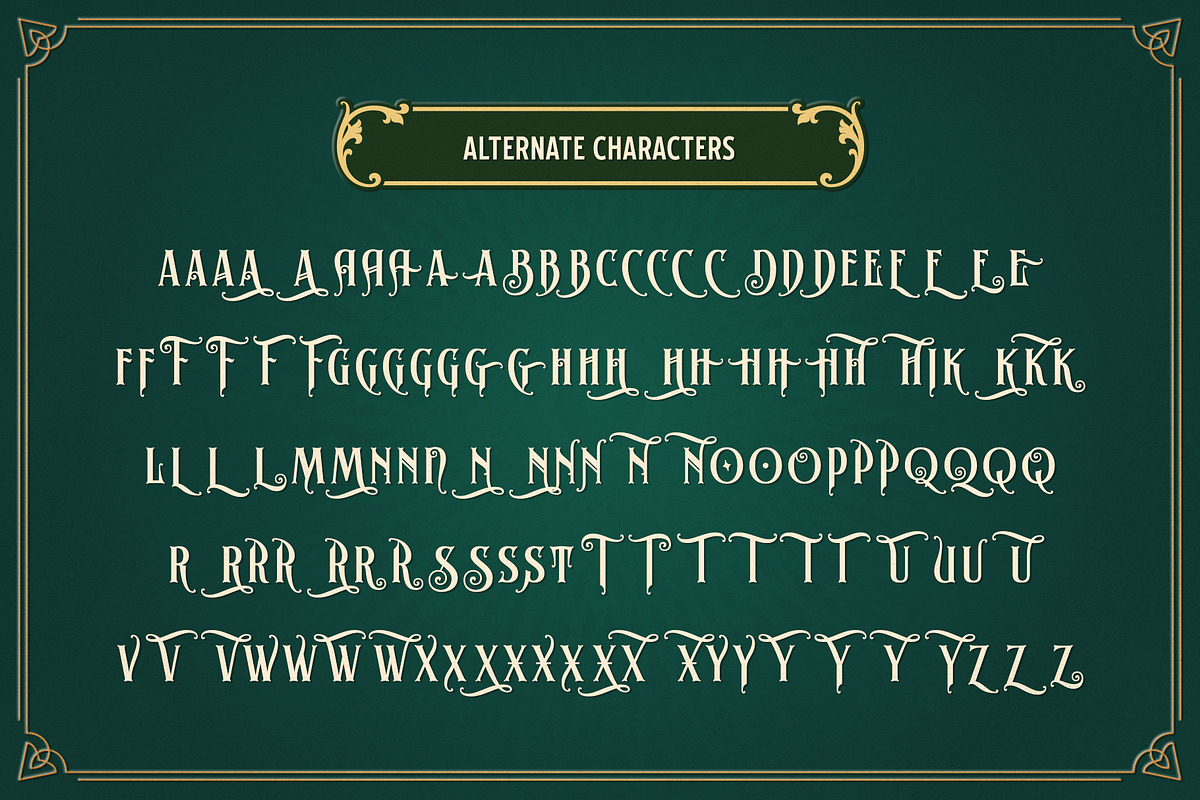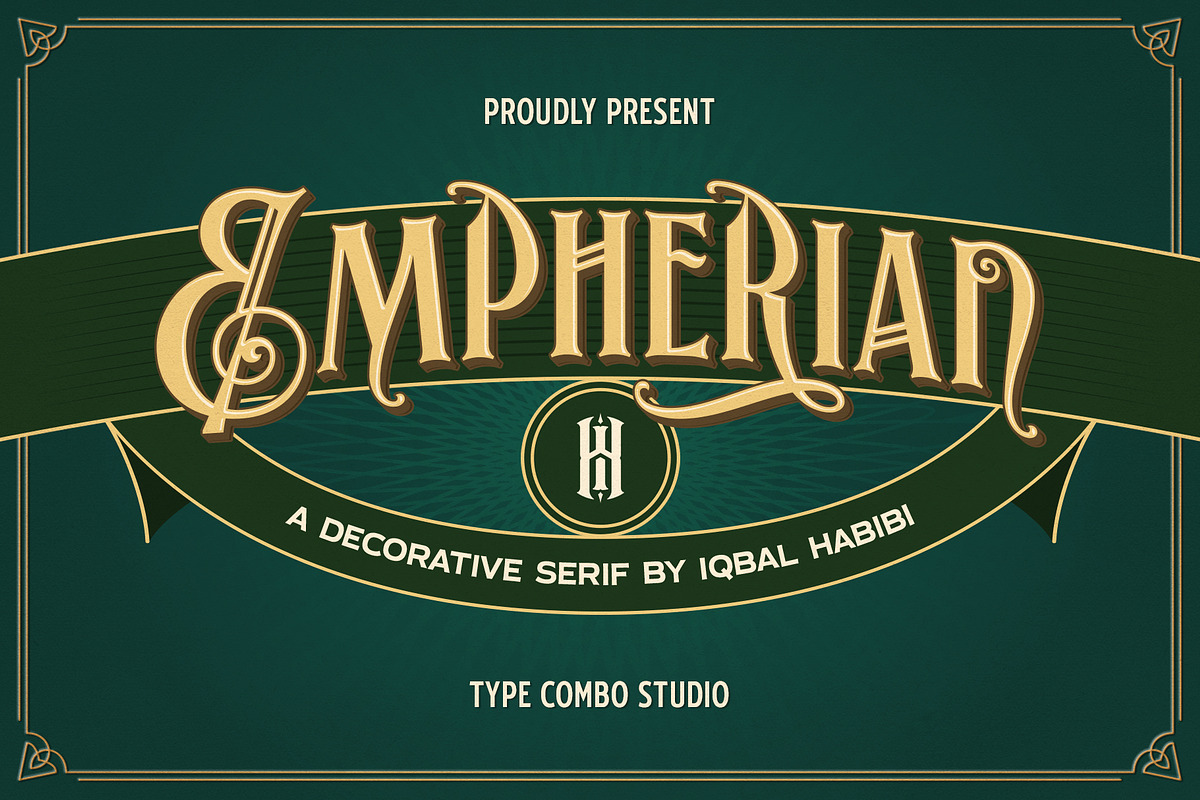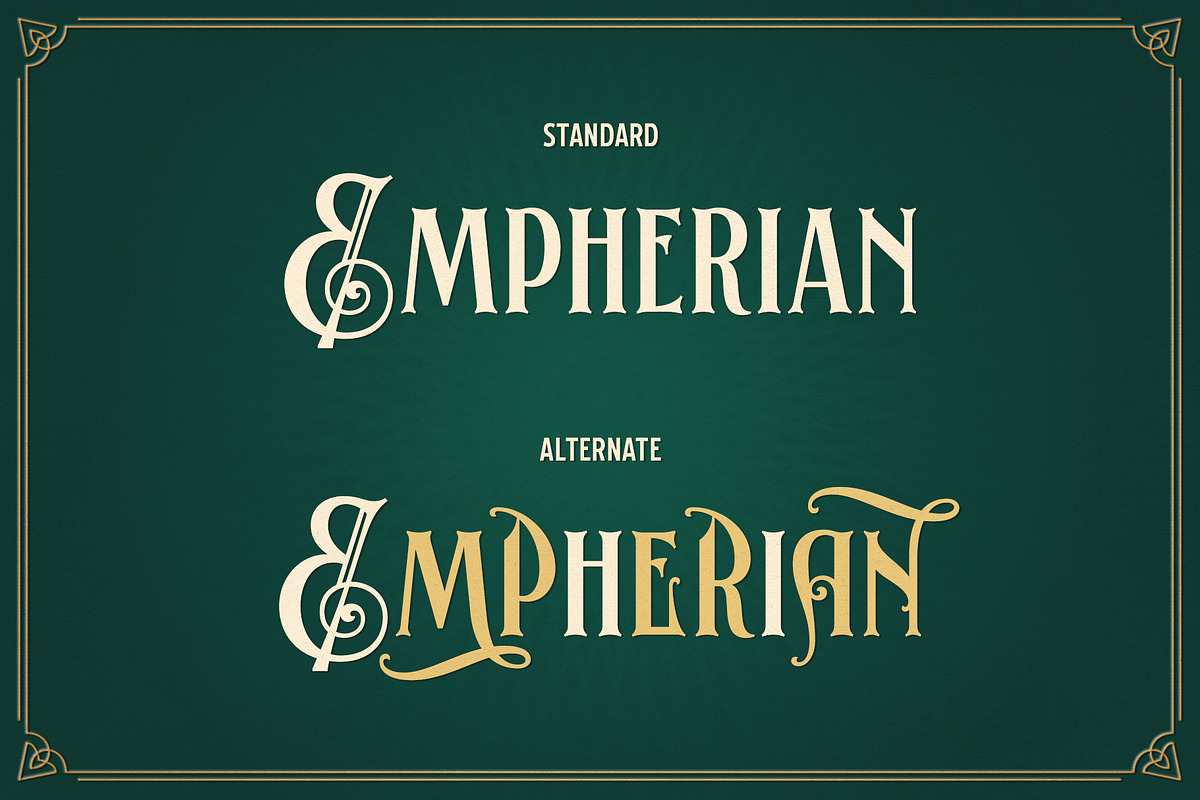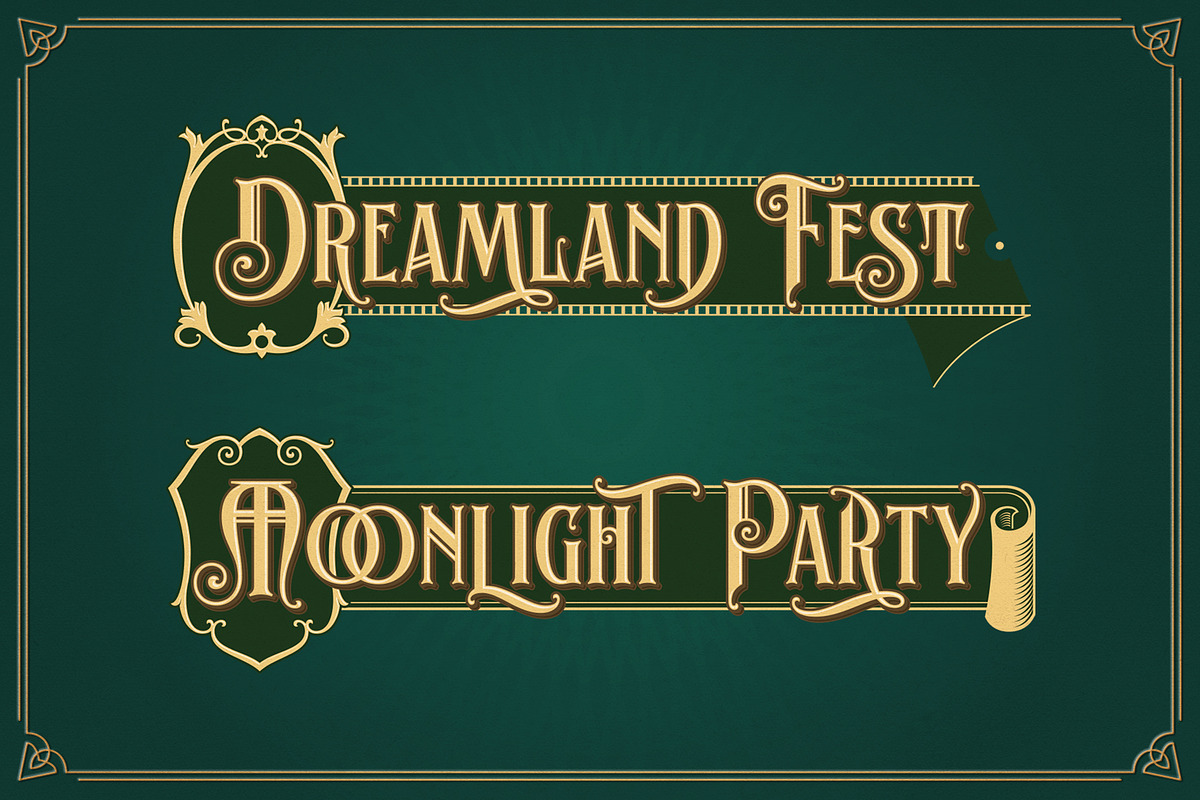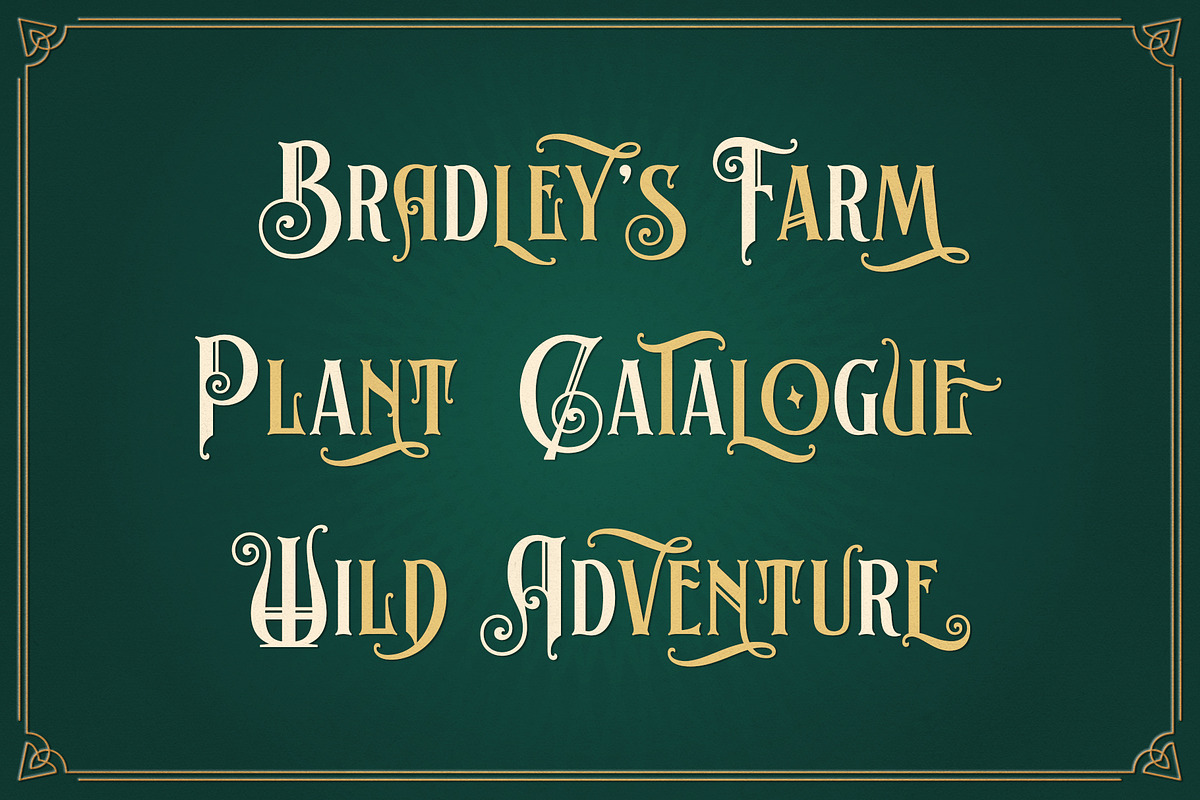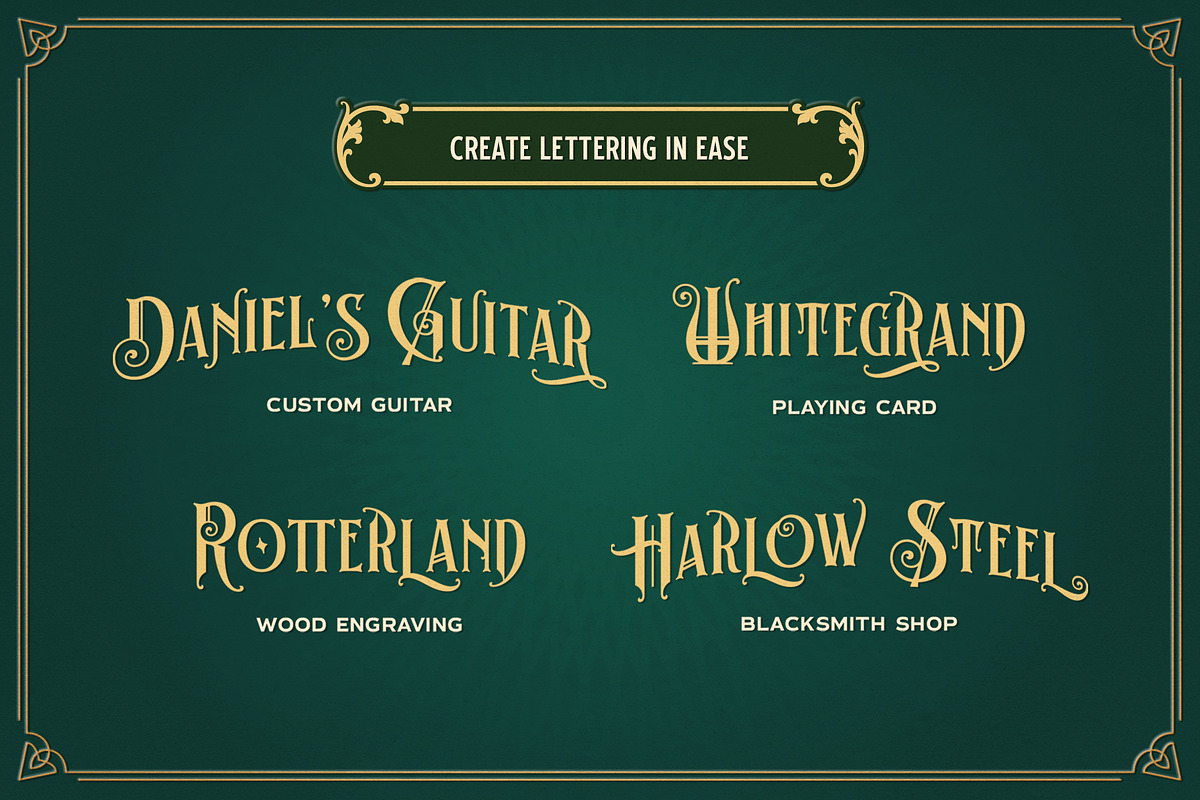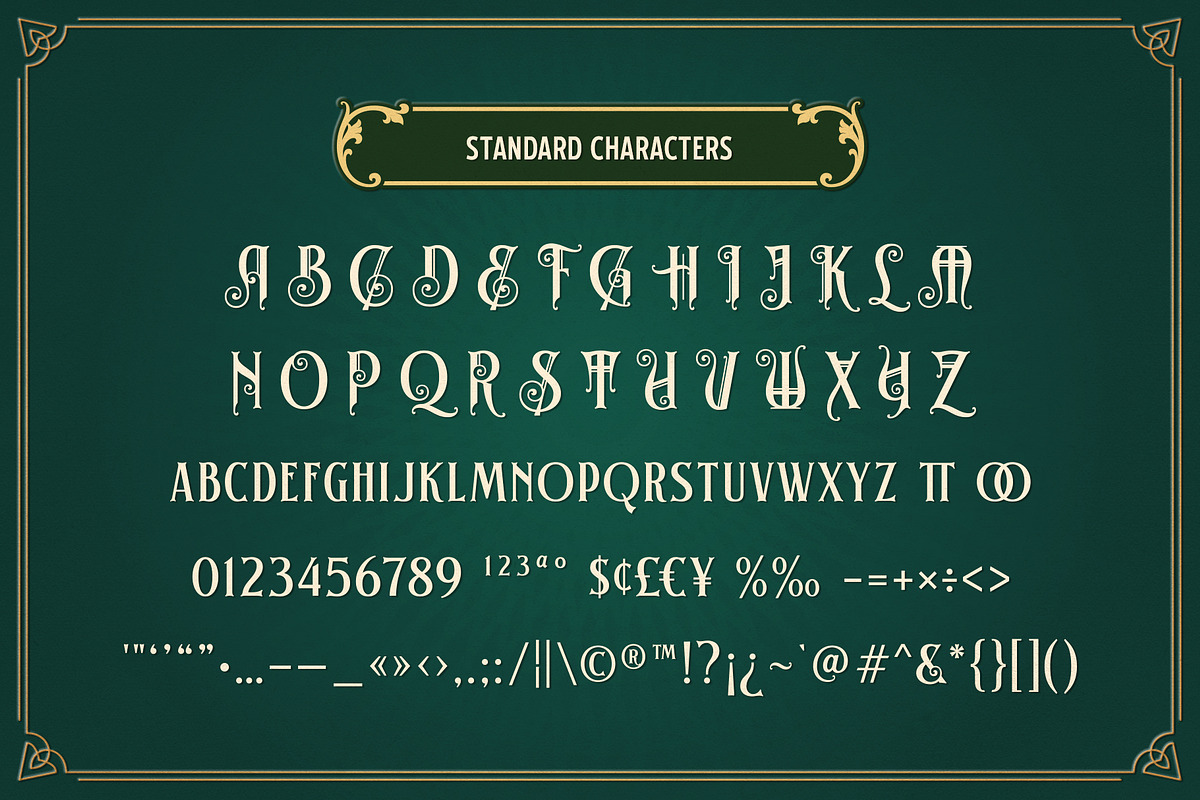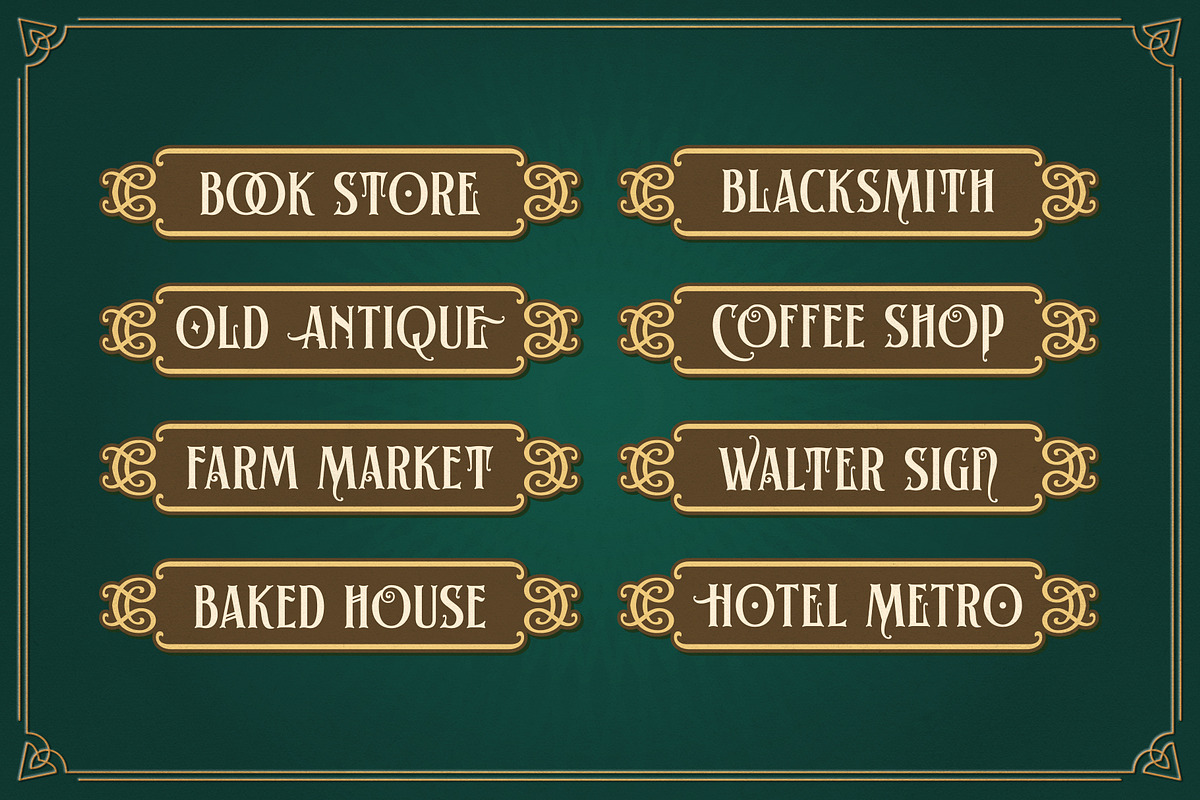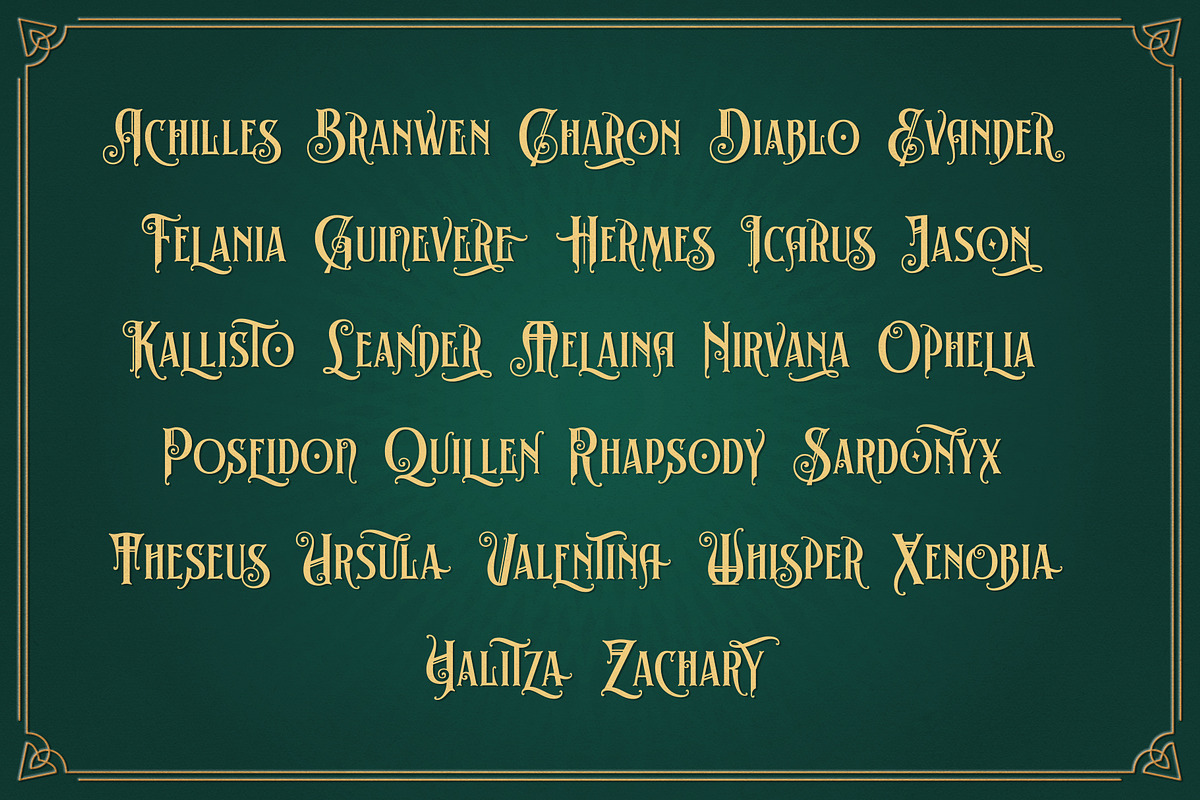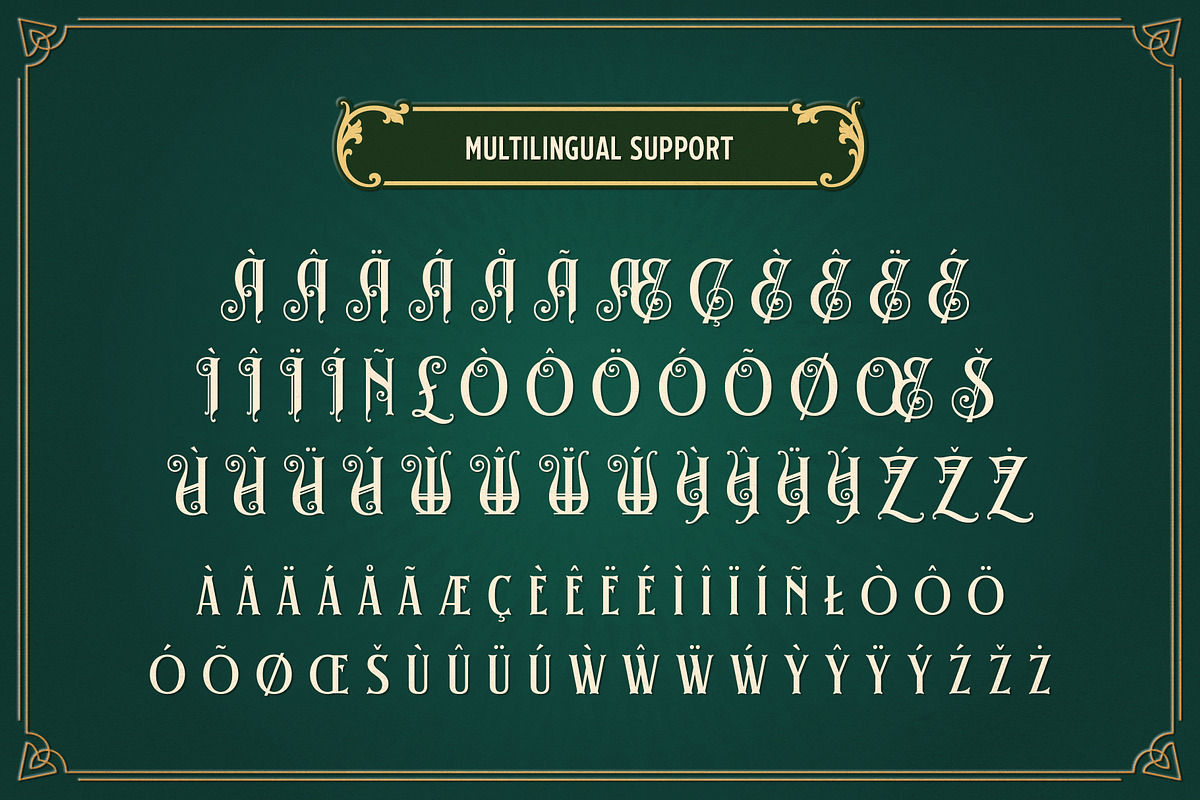
Empherian - Decorative Serif
Empherian is inspired by typefaces on the vintage catalog cards and vintage book covers. The swirl gives the old fashioned style, beautiful, and unique. Empherian is a decorative serif font that I made especially for lettering enthusiasm and logotype designers who always work with custom letters so they can save a lot of time without customizing the letters. Empherian also has a wide range of alternate characters (100+ alternate characters). So, you can create a lettering logo in seconds using a combination of alternate characters. Empherian is suitable for creating lettering logos, vintage logos, signages, movie titles, even for your branding project.